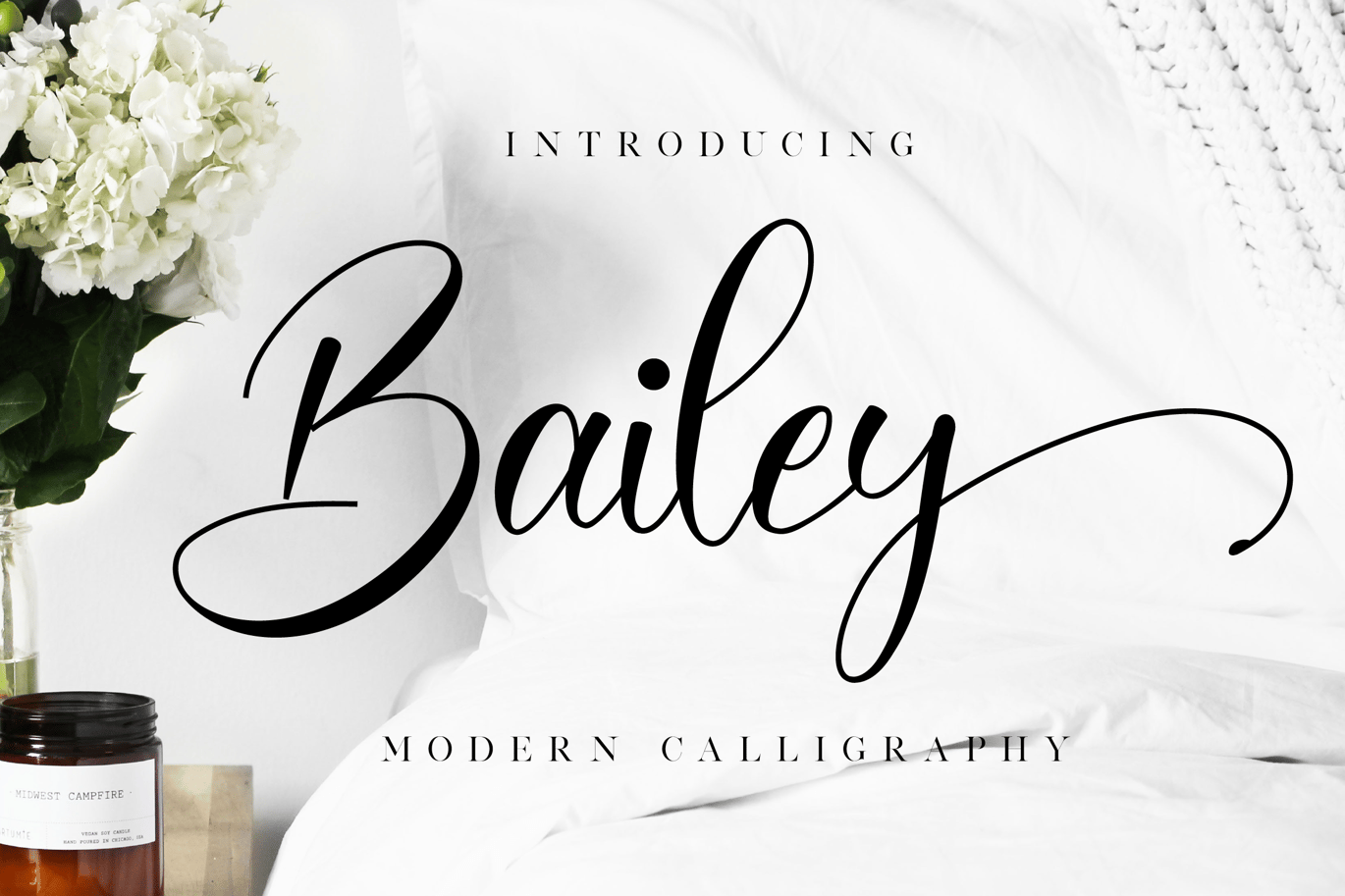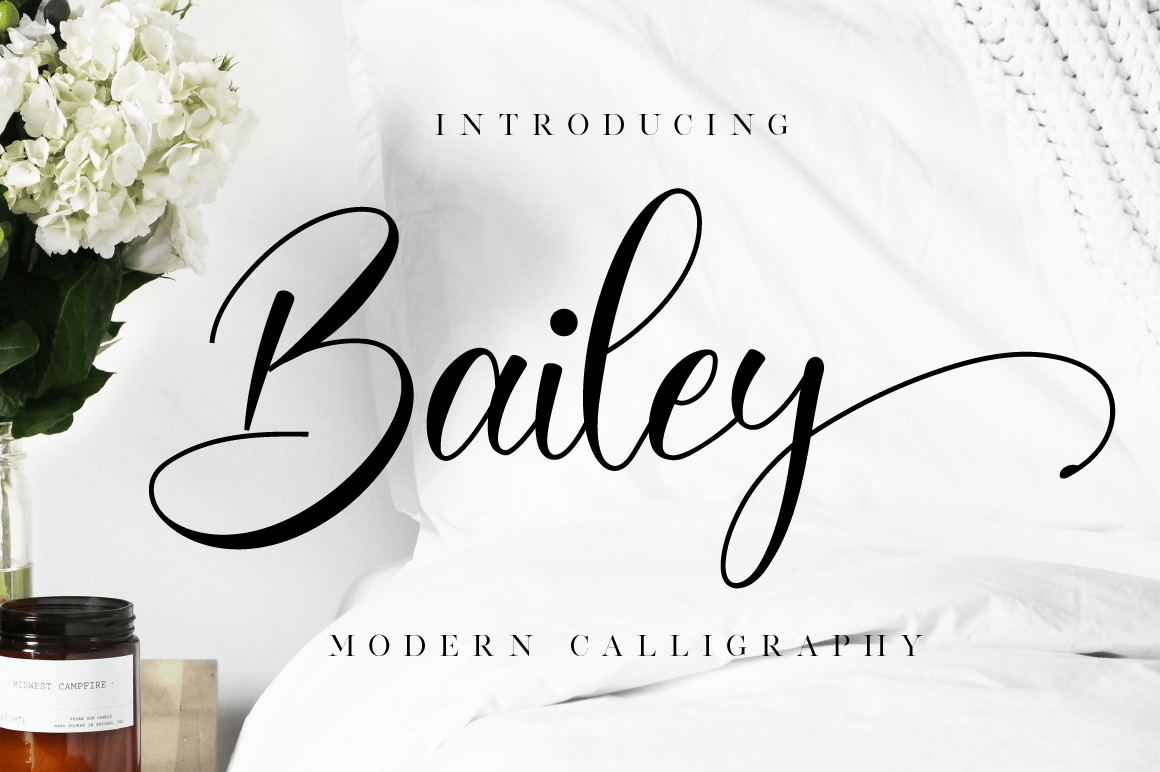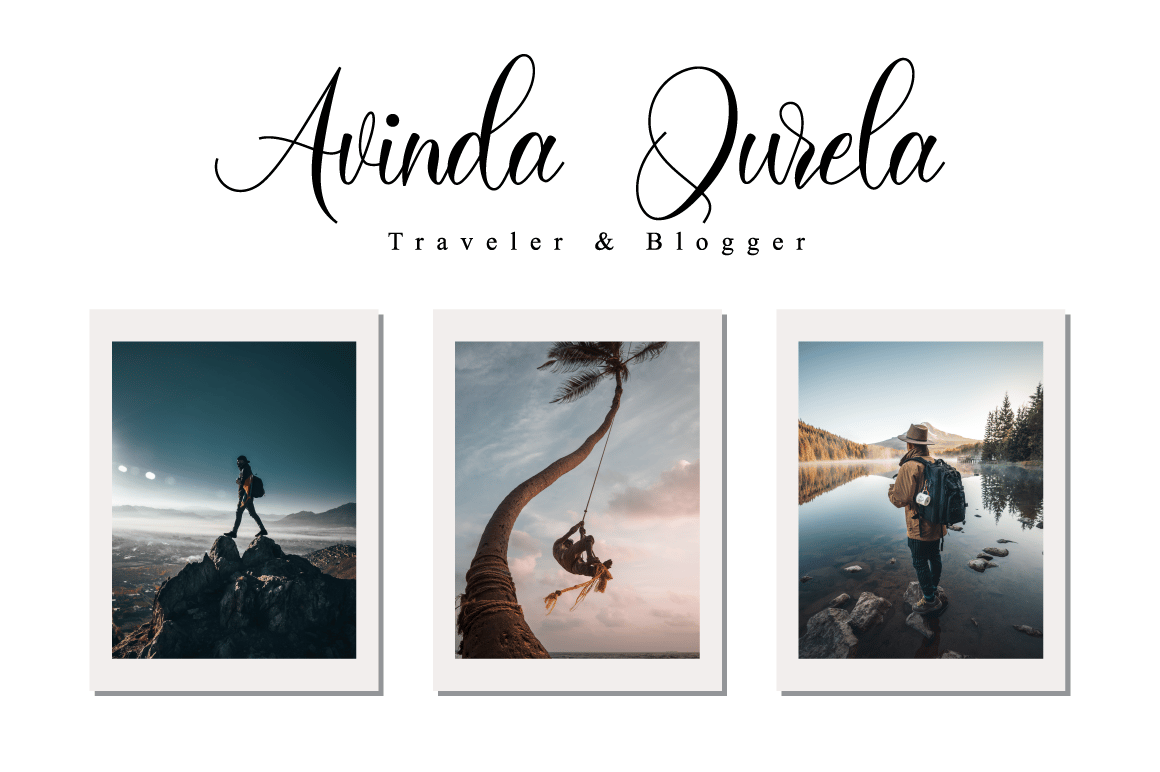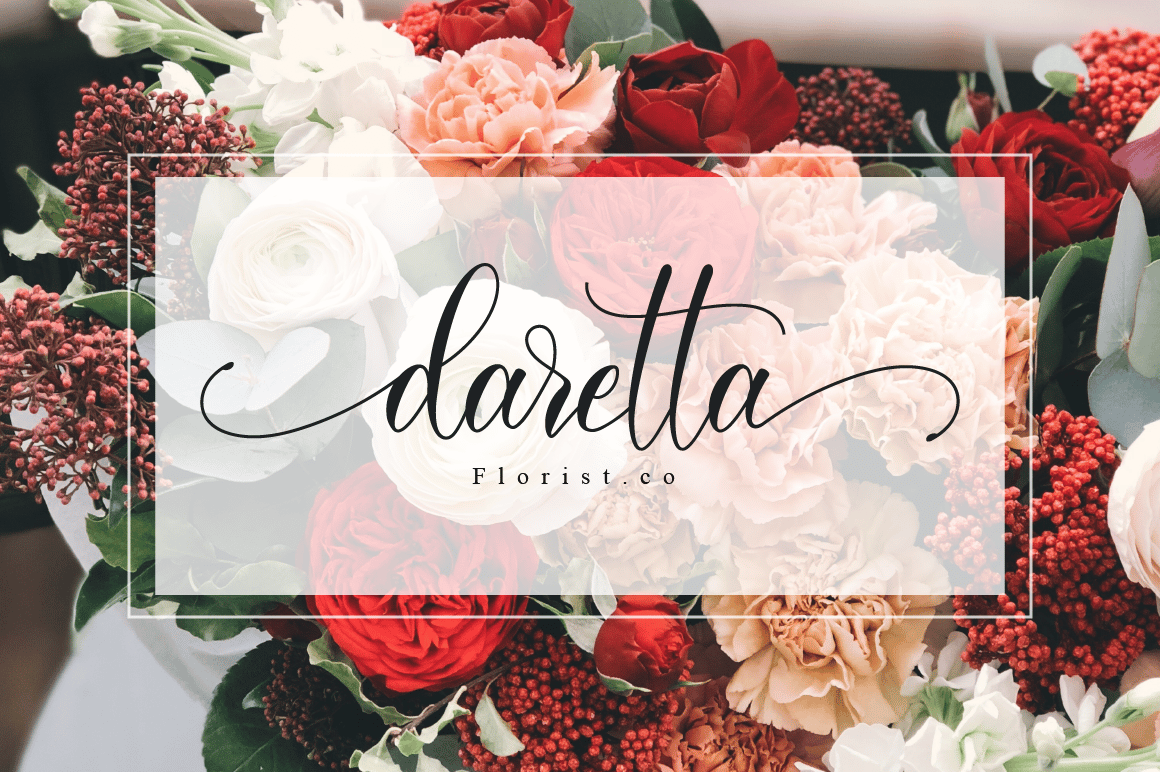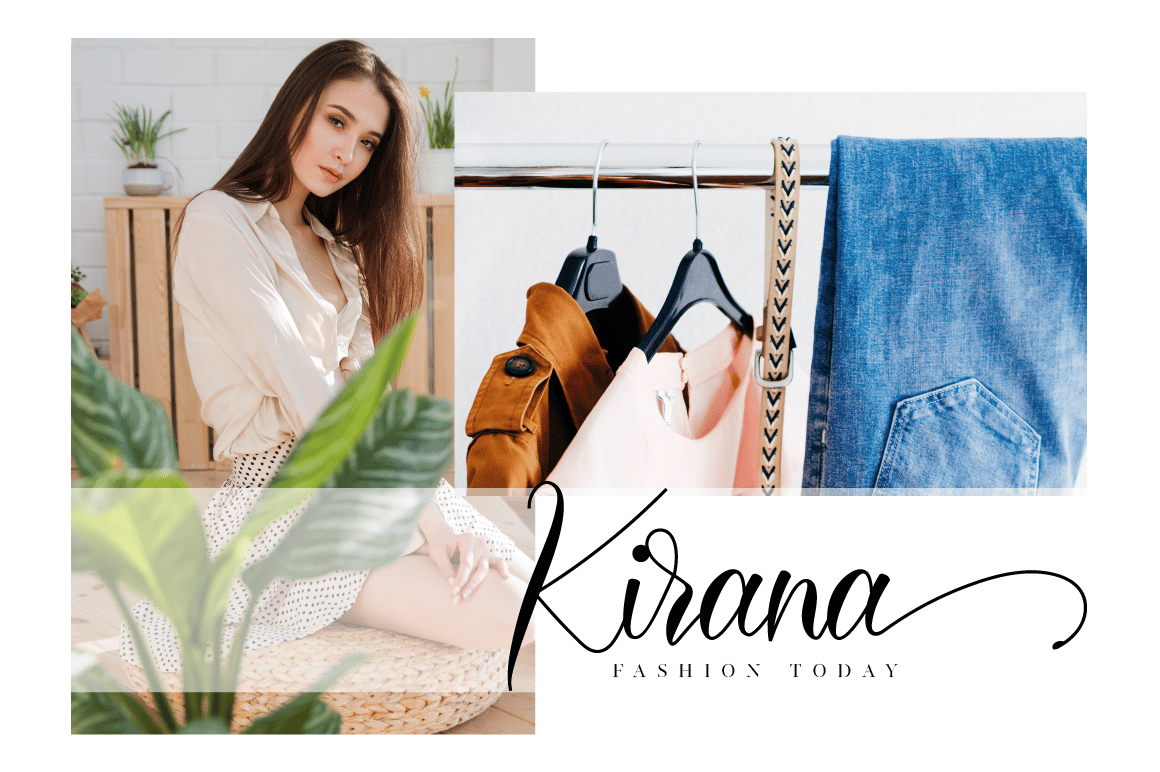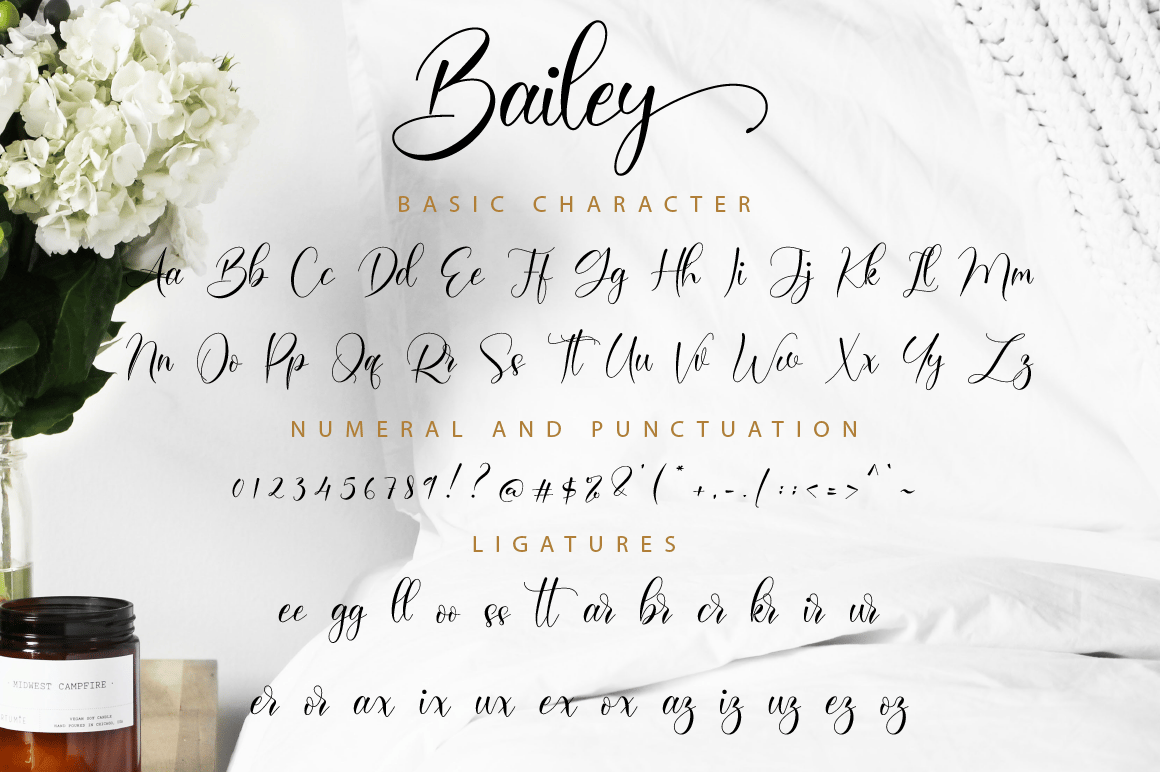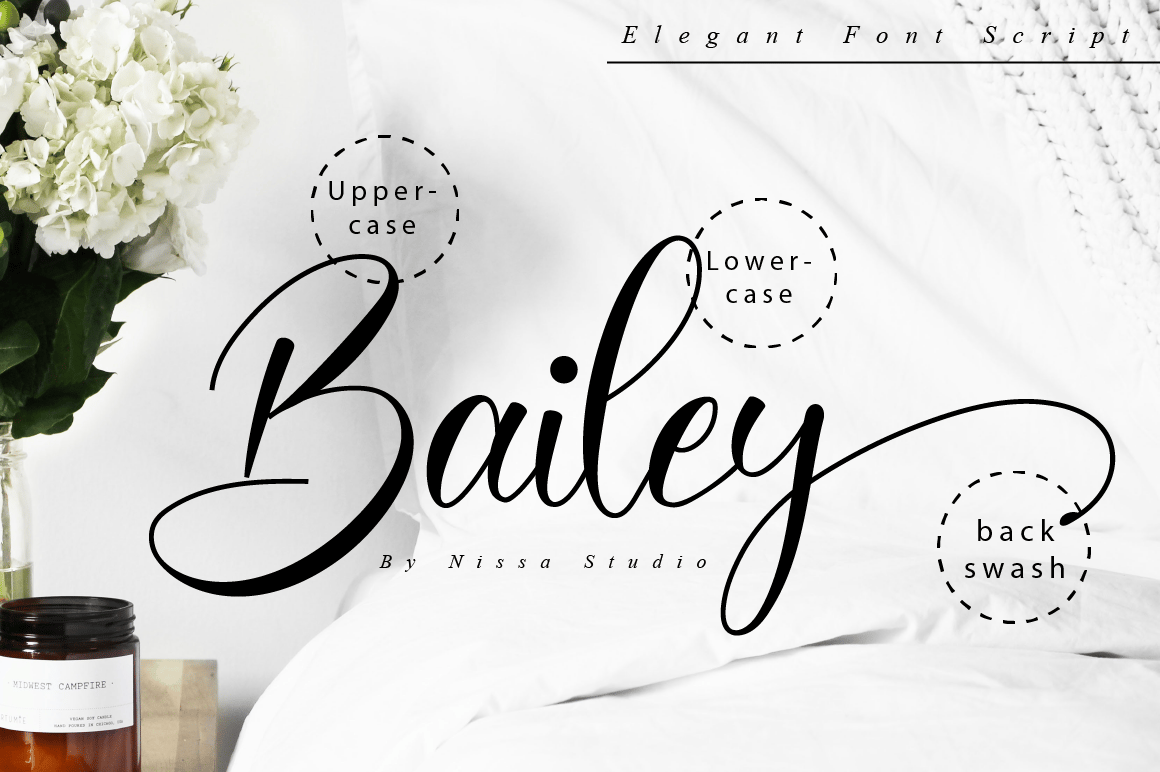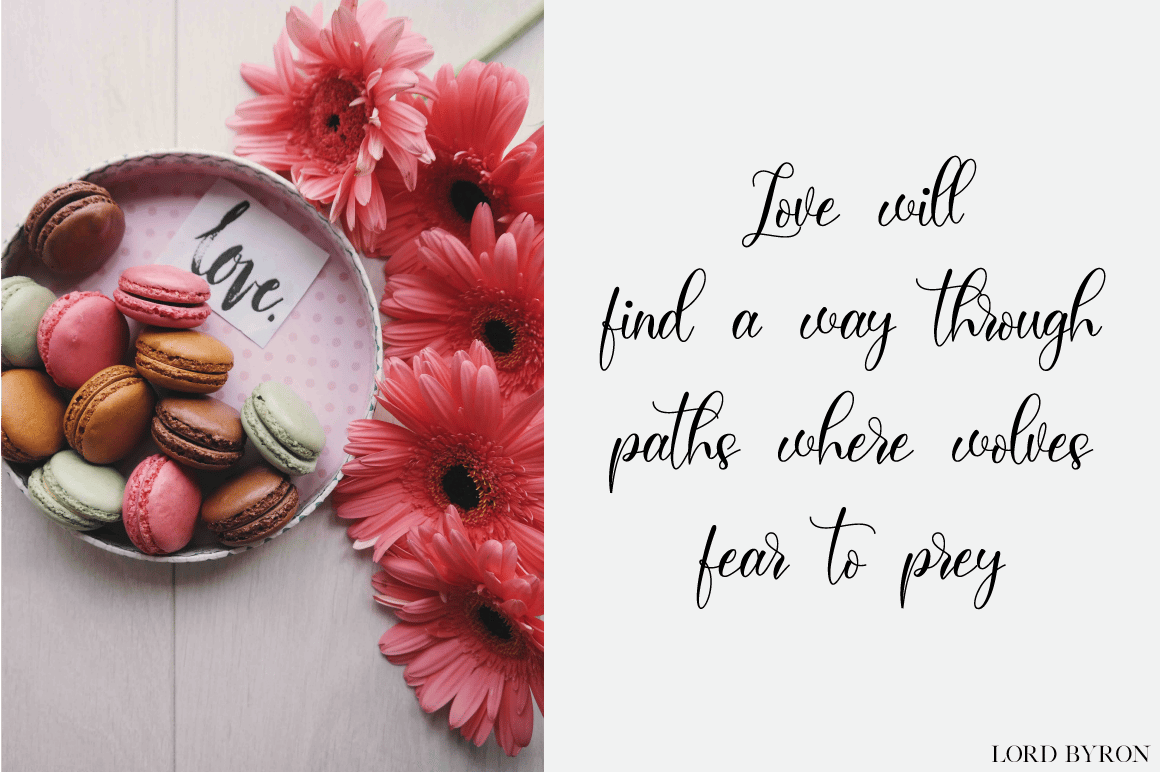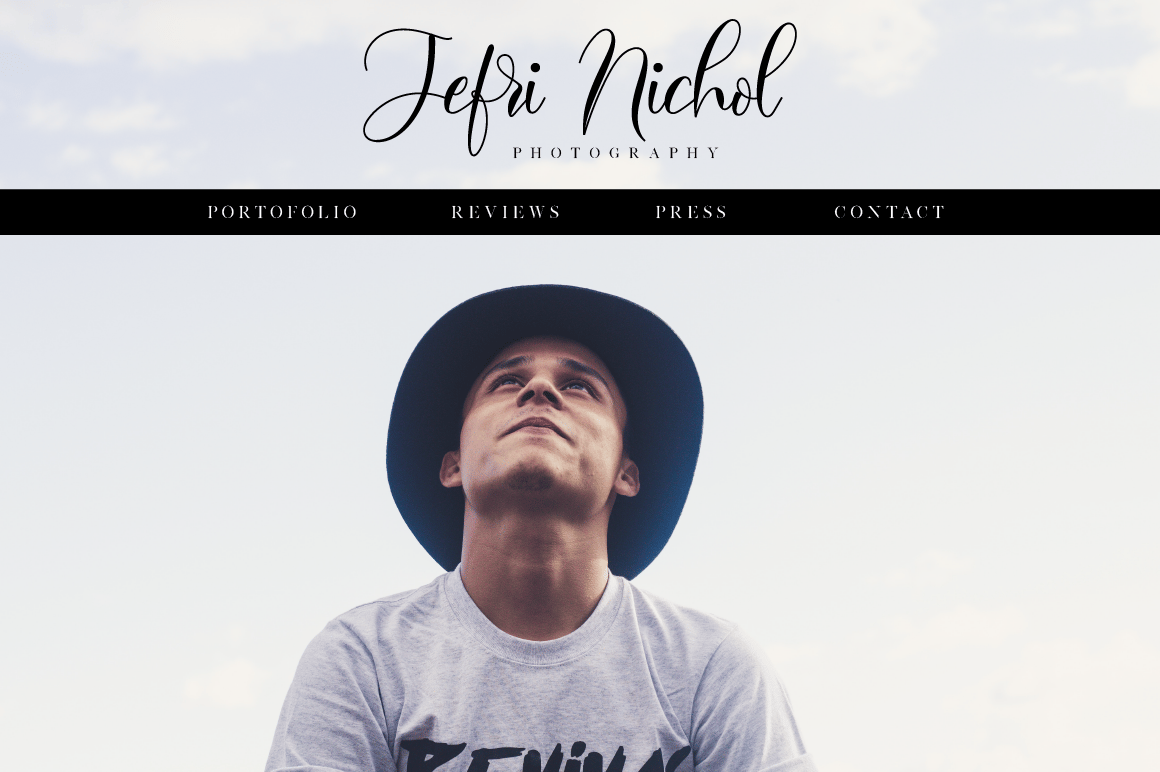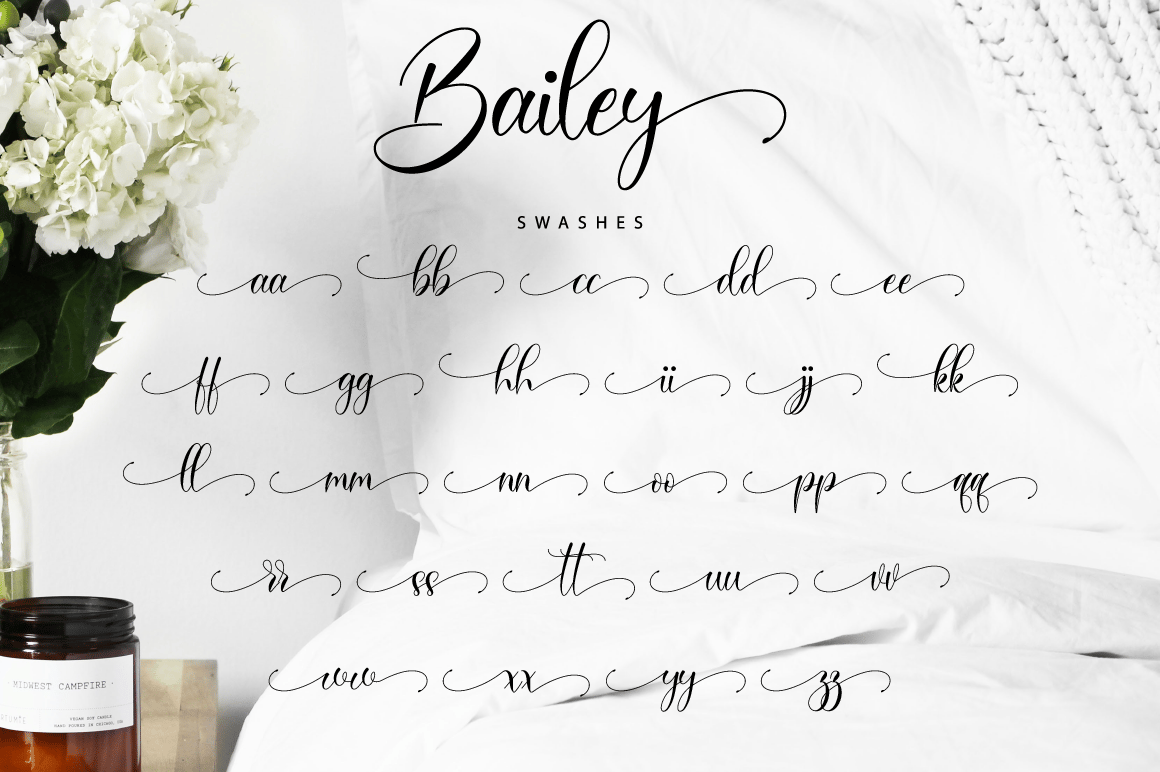
Bailey – Wedding Font
Bailey is a beautiful script that is classy, elegant, and modern. It is perfectly suited for a wide variety of projects!
- Modern Calligraphy Font
- Beautiful Swash (Ending tail)
- Beautiful Titling (Beginning tail)
- Special Ligatures